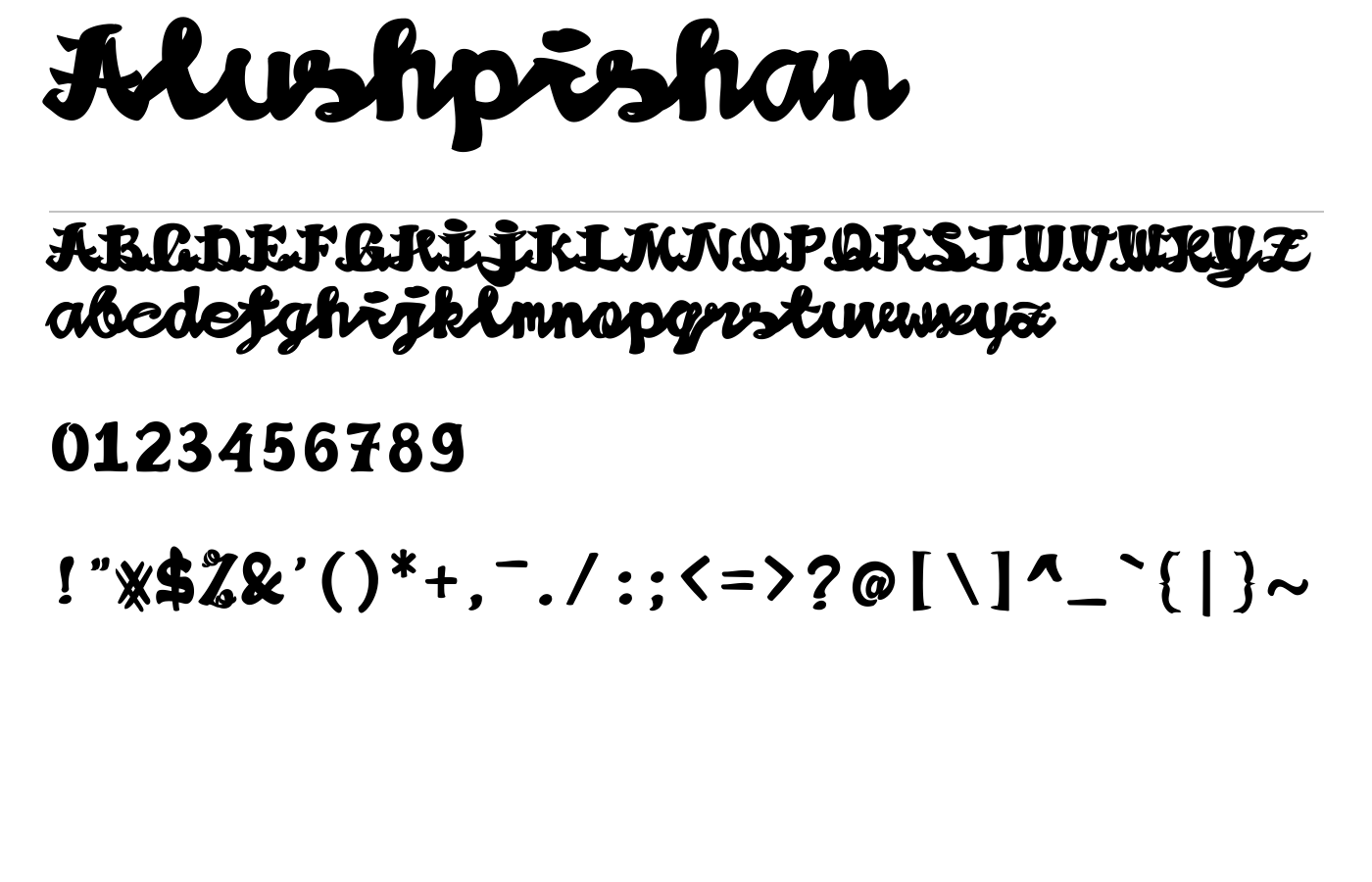
Alushpishan is a bold, playful script font with thick, rounded strokes and lively, flowing letterforms that mimic handwriting with a touch of whimsy. Its high contrast and dense, compact shapes give it a strong presence, making it ideal for eye-catching headlines, logos, and creative branding that seek a fun yet impactful feel. This font works best where personality and uniqueness are desired, bringing a cheerful and dynamic vibe to any design.
Alushpishan Font